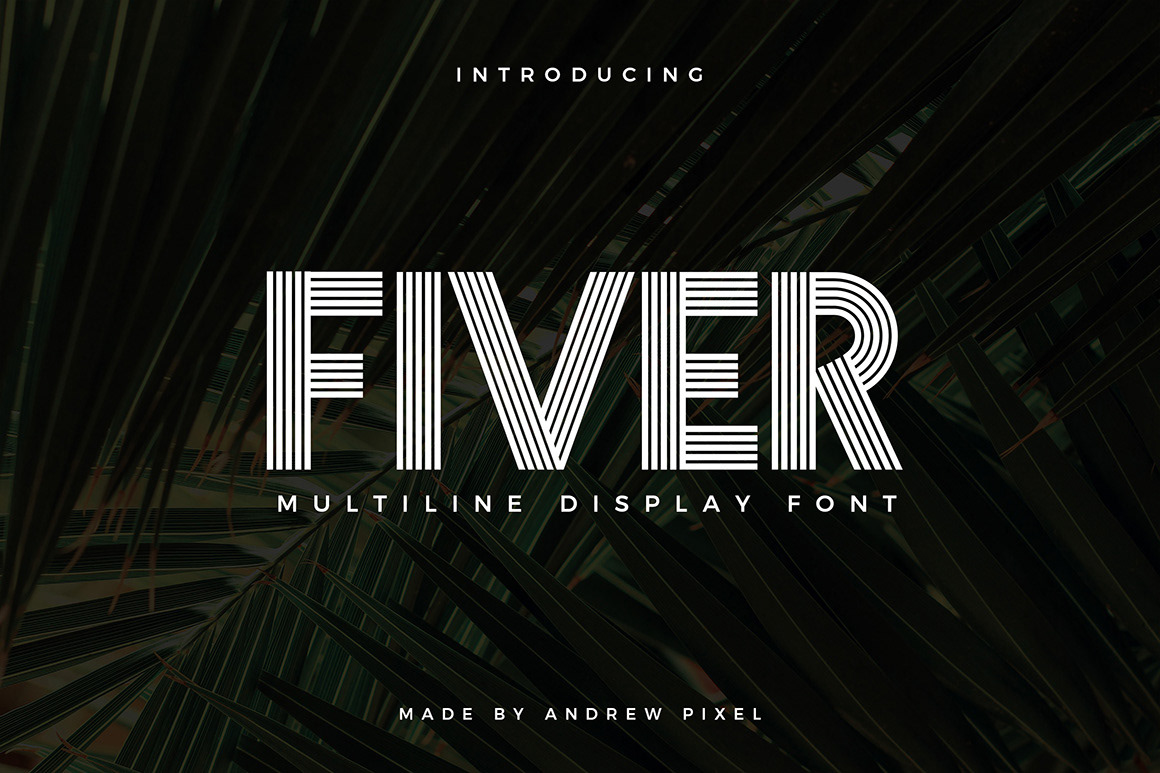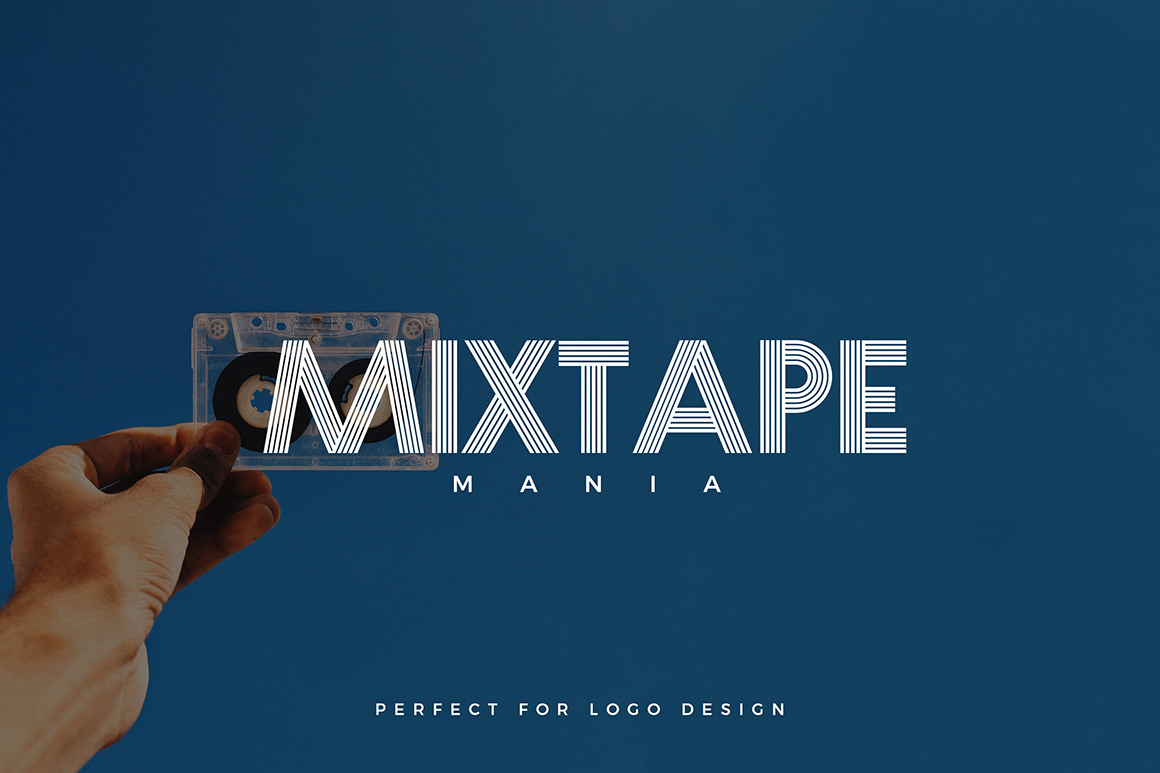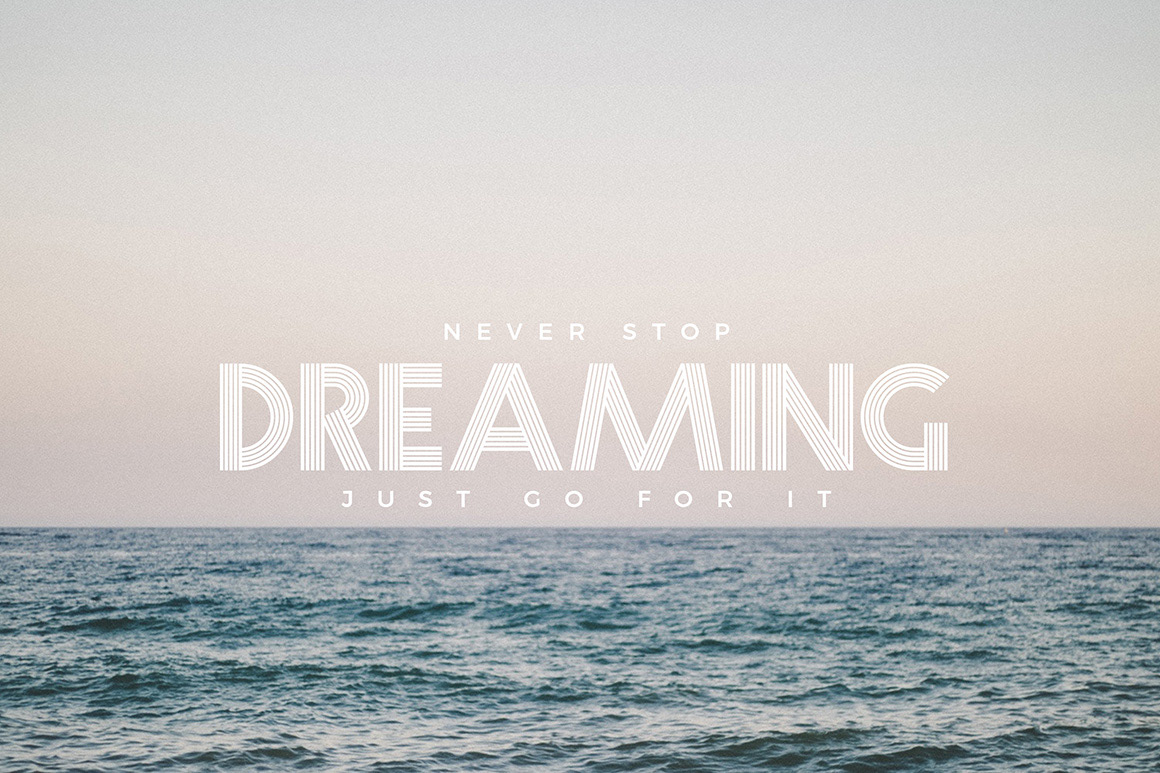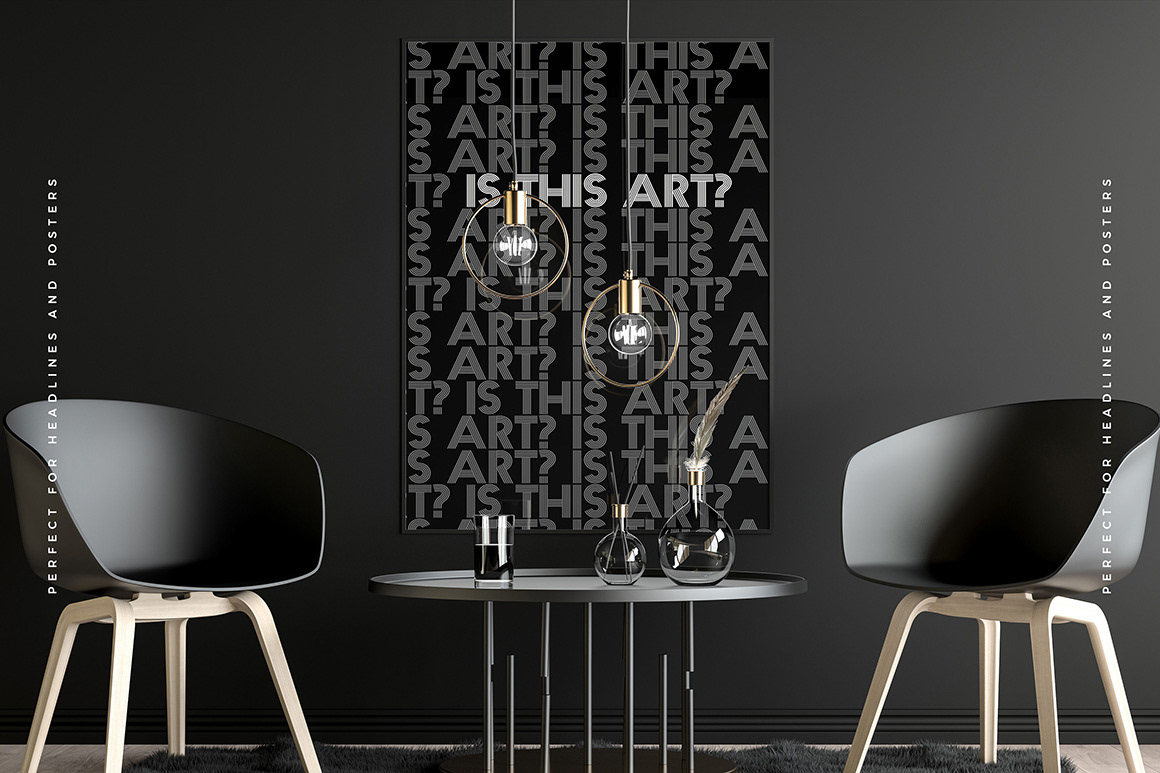
Introducing Fiver – A multi-line display font for headlines and logo design.
The font combines the best parts of both the vintage and modern into a single style
Fiver – Multiline Display Font
The font is best suited for large display sizes such as logos, quotes, packaging, merchandise, headlines, advertising and more.